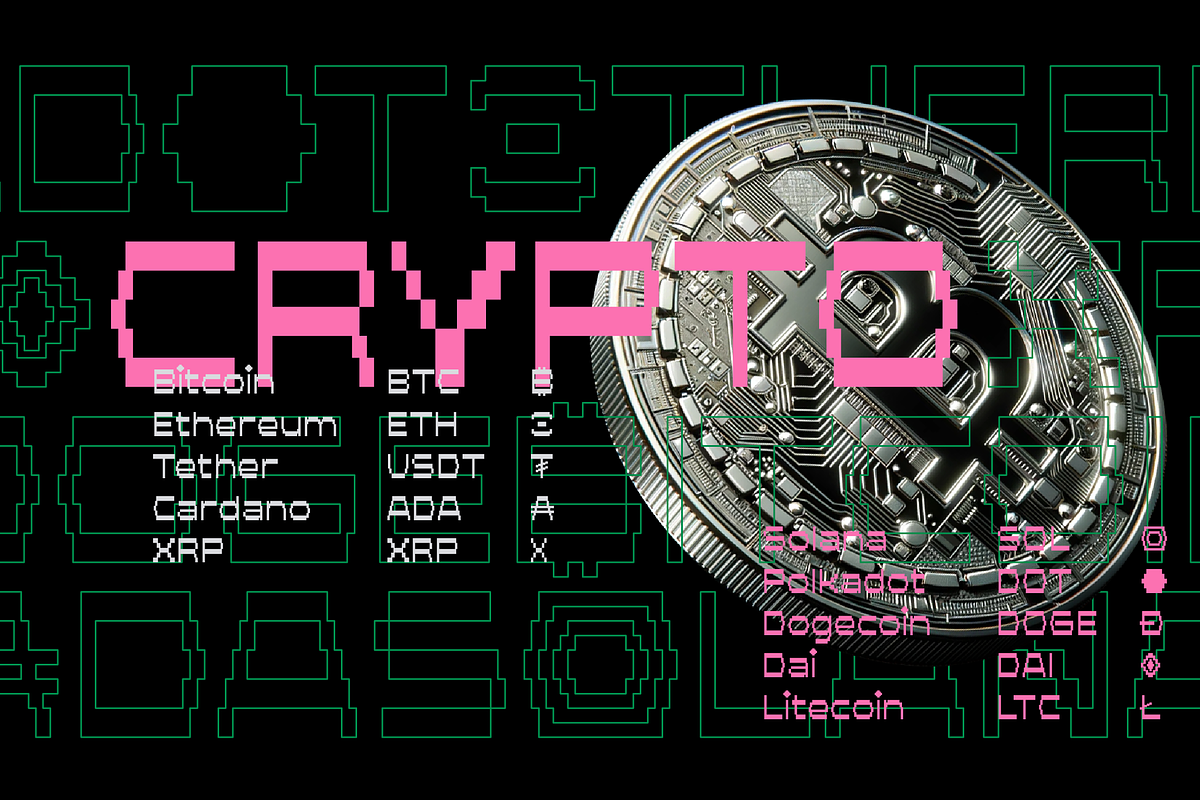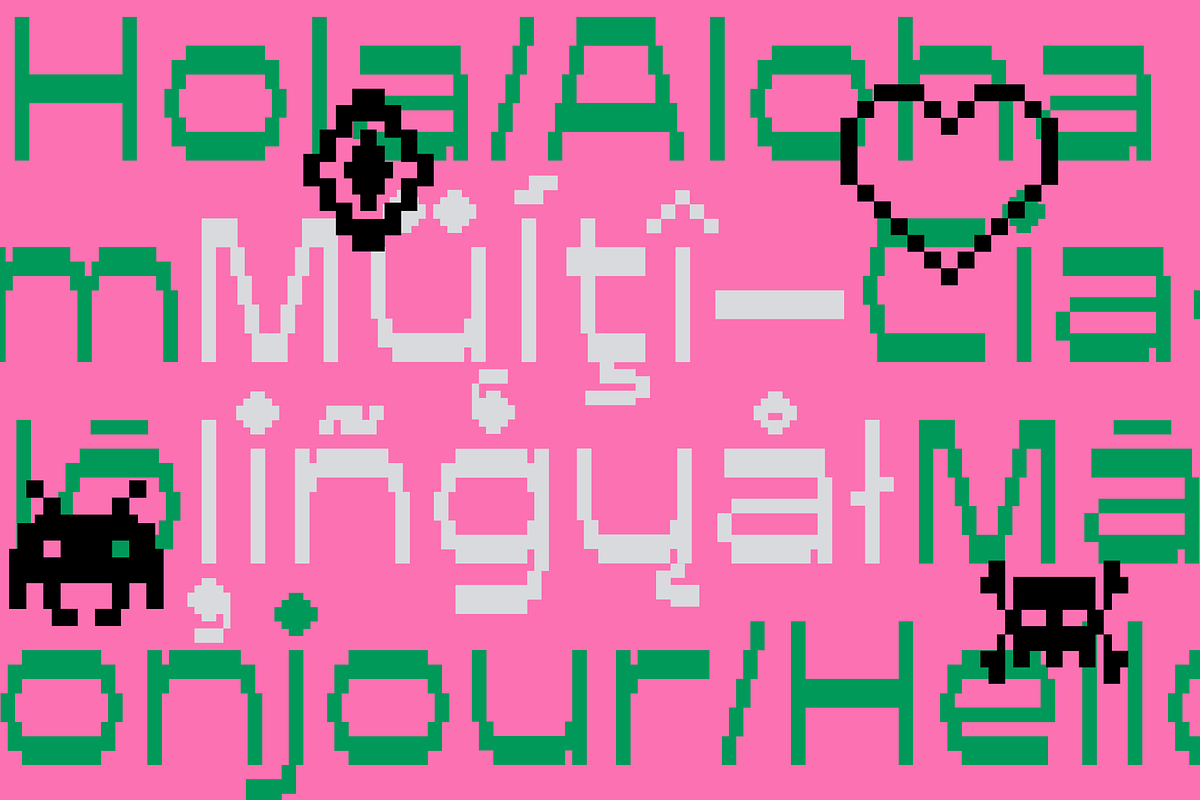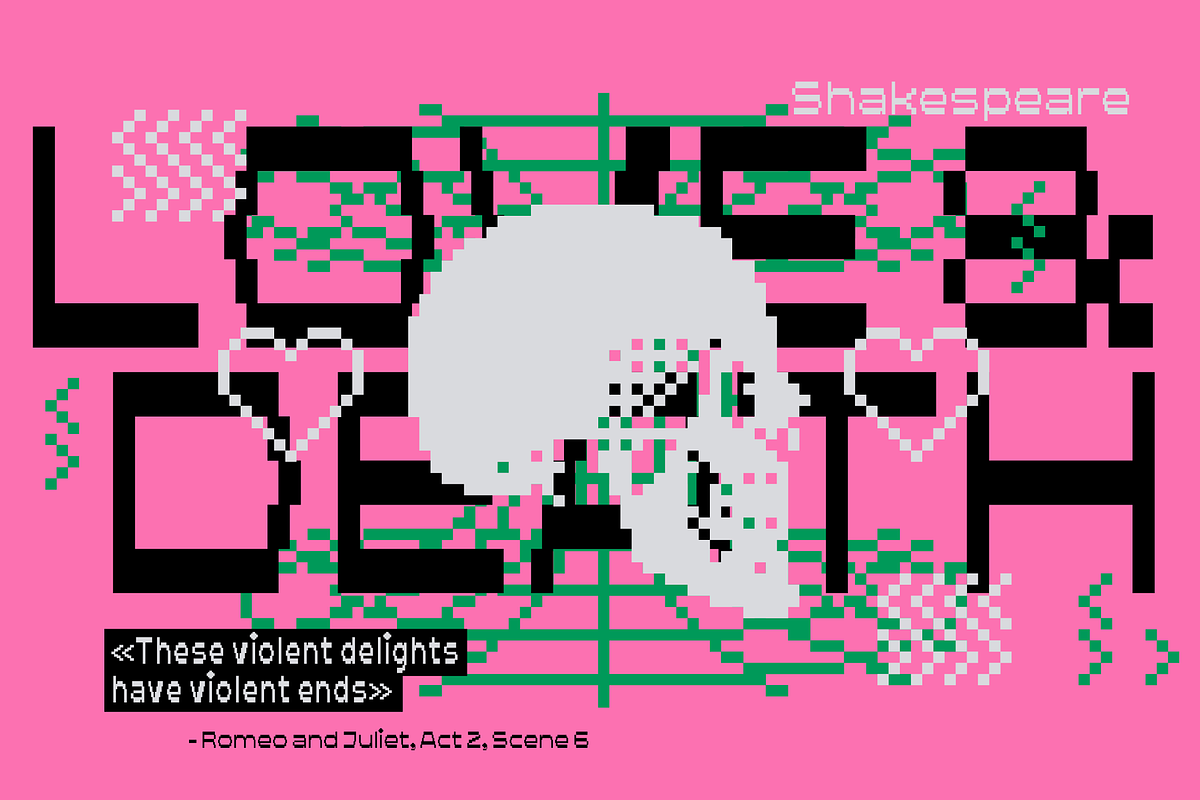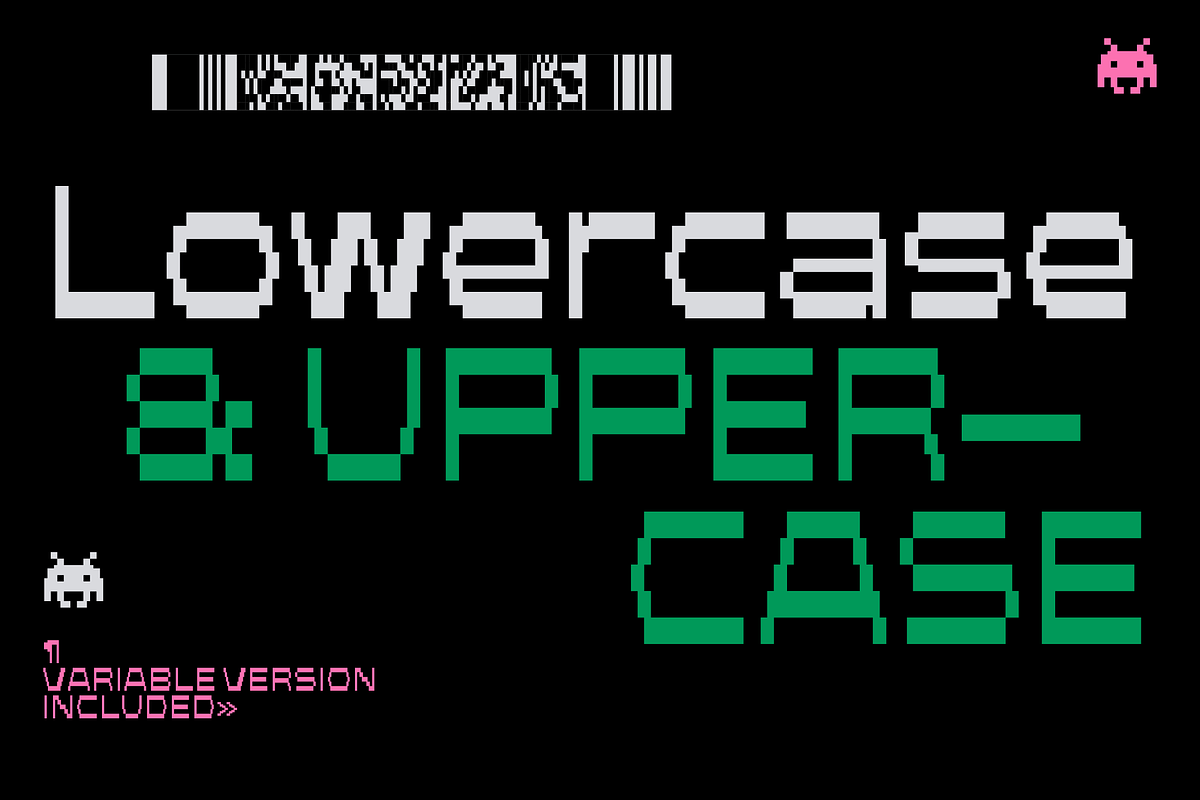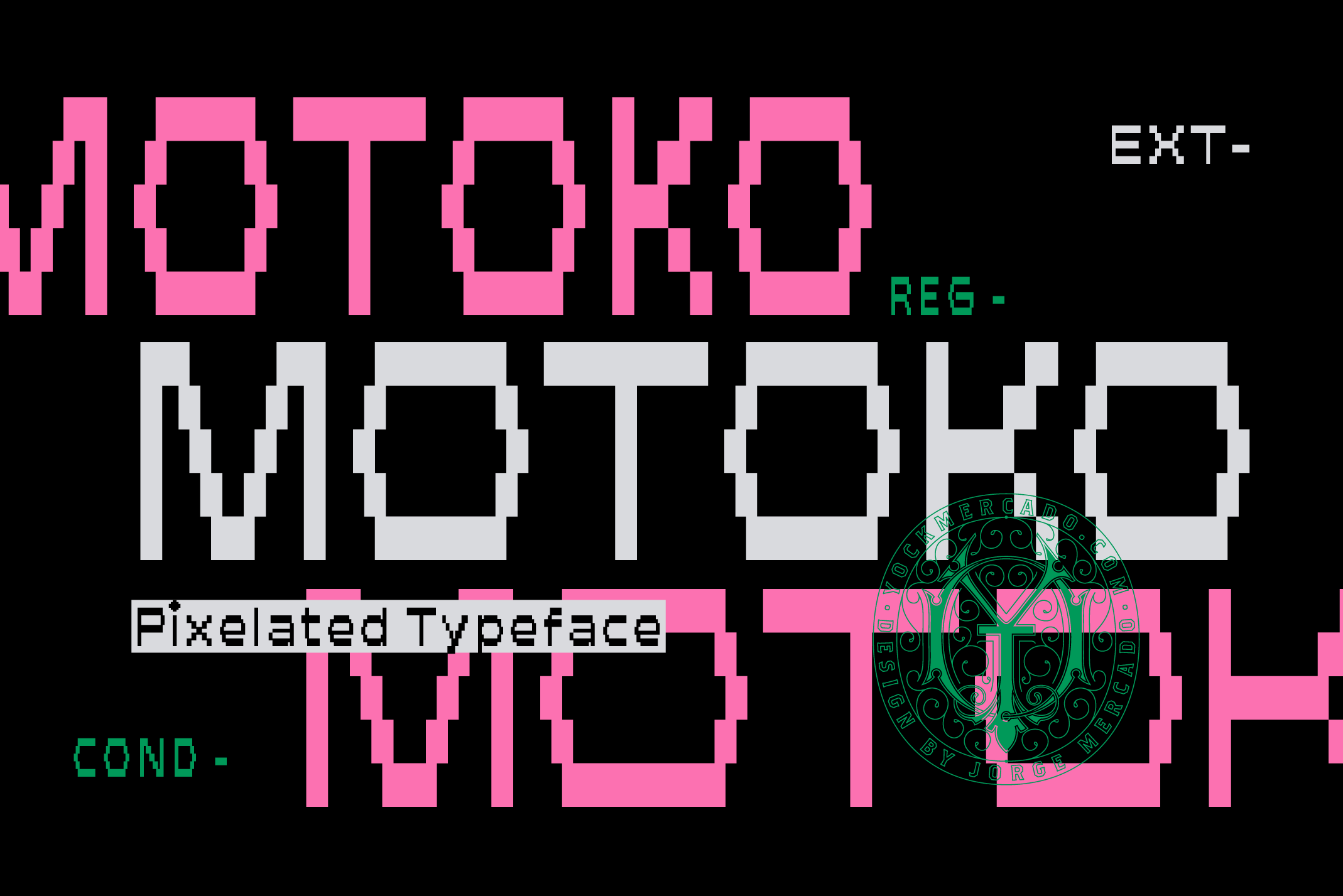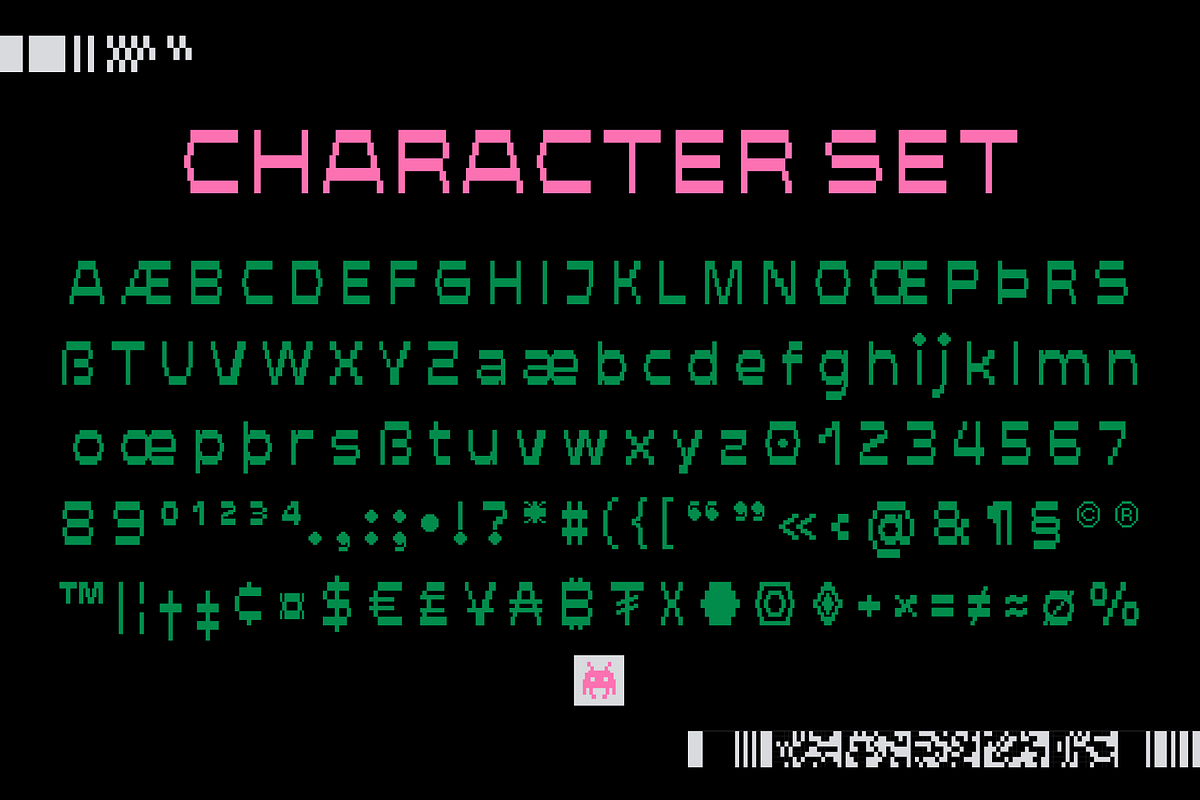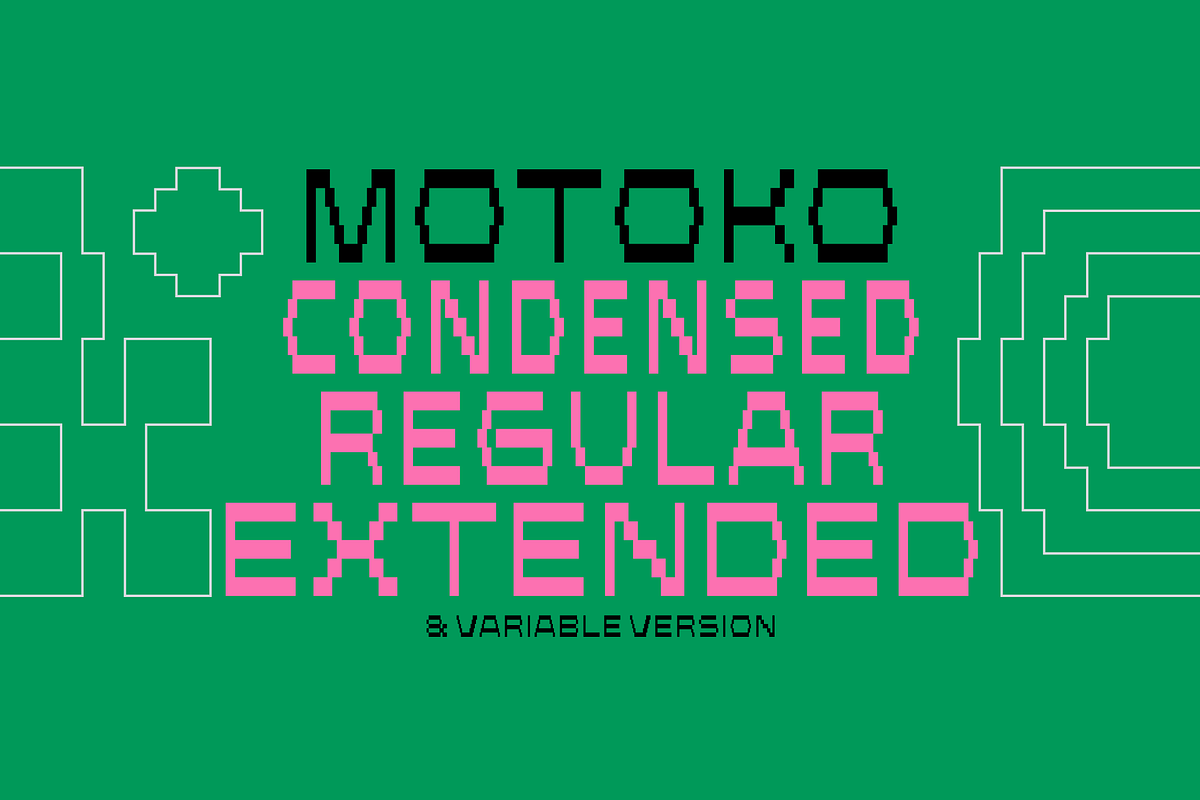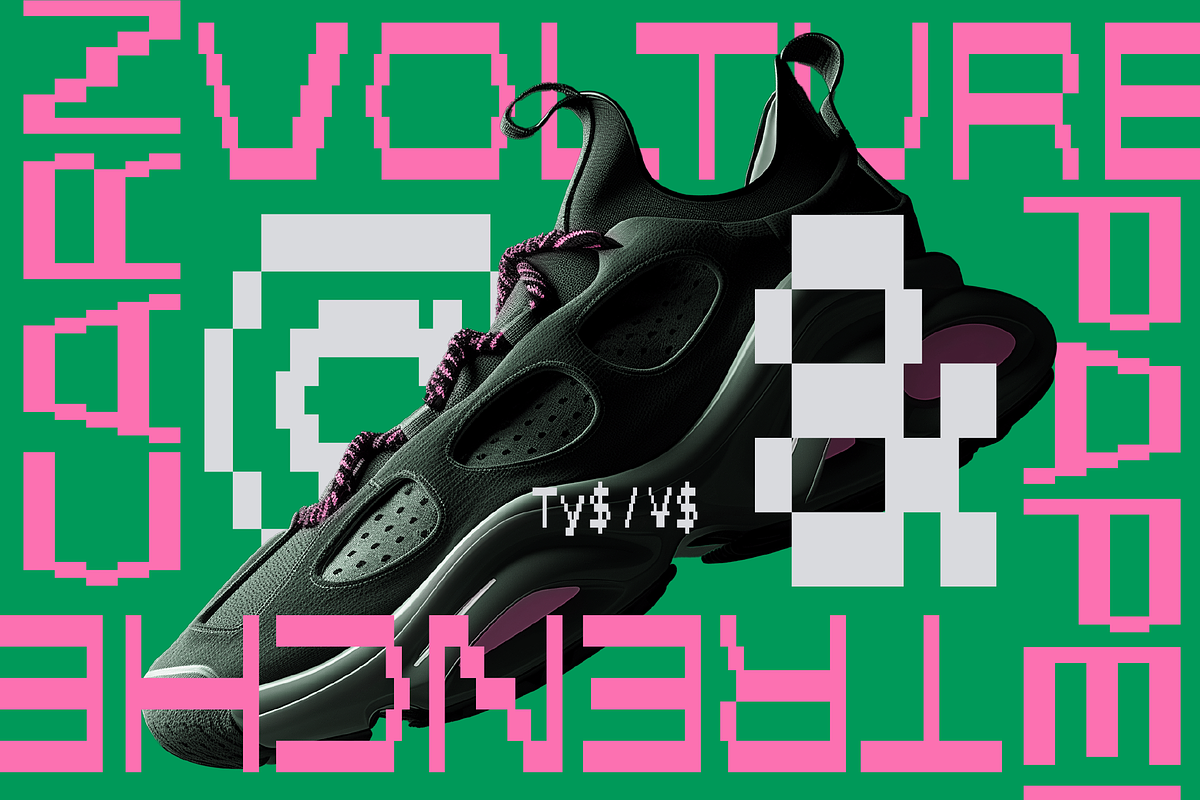
Motoko Pixel Typeface
Introducing the Motoko Typeface, a versatile, pixelated font family with a retro digital aesthetic that pays homage to the 8-bit graphics era. Offering multiple styles including condensed, regular, extended, and even a variable version, Motoko is perfect for designers who want to inject a nostalgic yet futuristic vibe into their work. Whether it’s for branding, game design, or digital art, Motoko’s clean lines and modern layout ensure high readability and a touch of personality. This typeface is not just a font, it's a design tool that adapts to your creative needs.